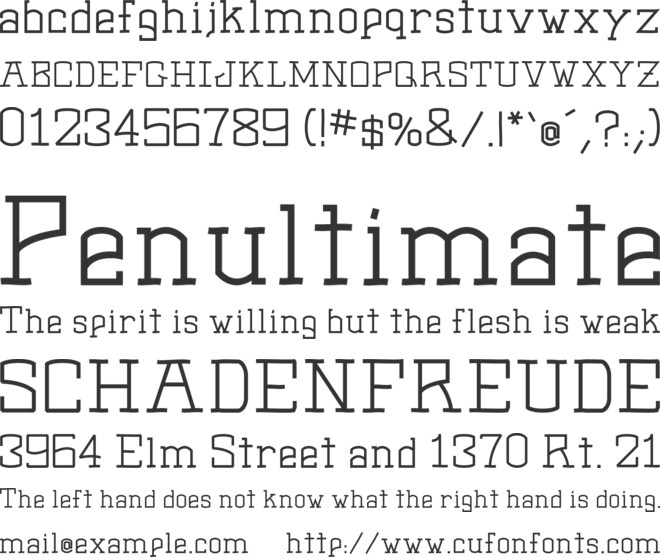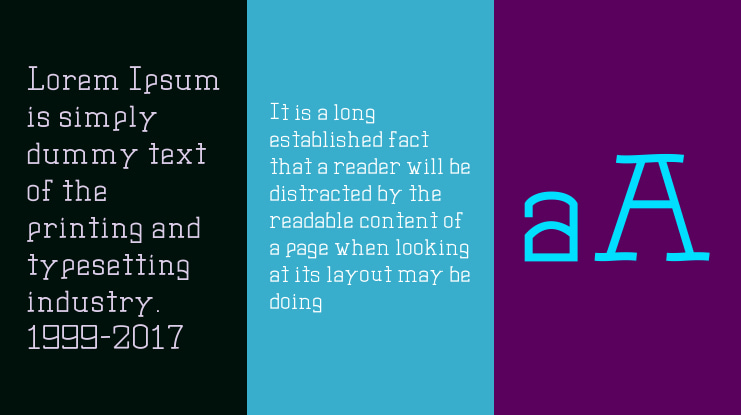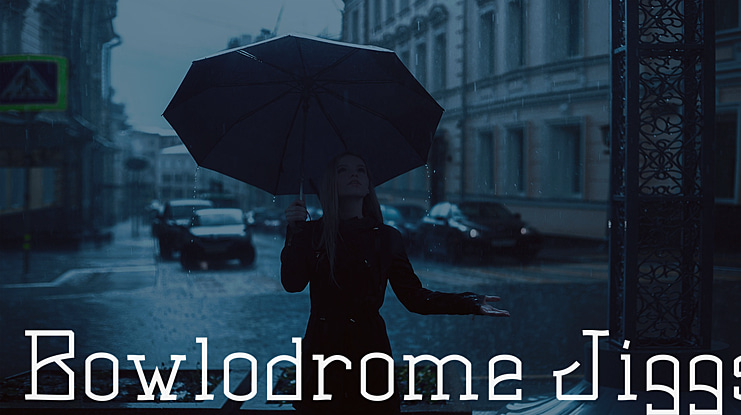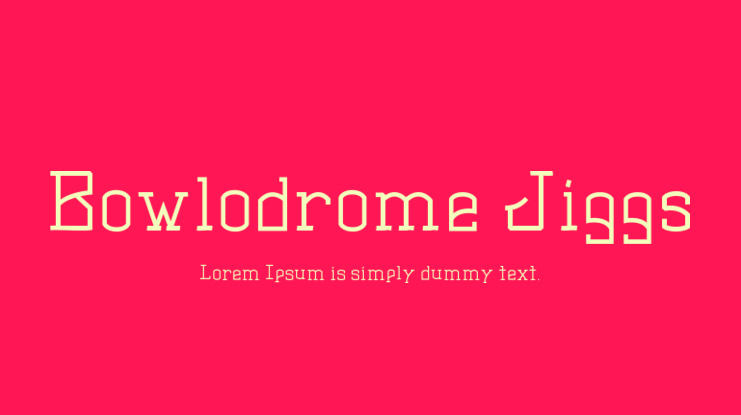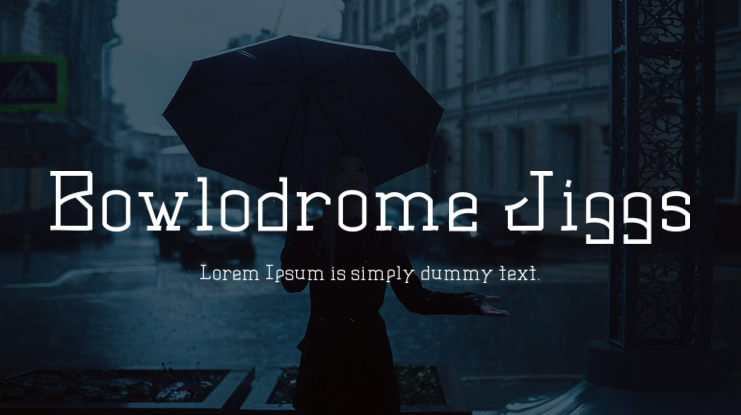
Custom typeface inspired by my Father's engraved letter forms. Giglio "Jiggs" Pallotta was a machinist and metal spinner for the J. Schrader Company. When we were clearing out his workshop I found a bowling trophy plate that he'd engraved and I based this font on those letters. Software used is Inkscape to draw the glyphs and FontForge to develop the typeface.